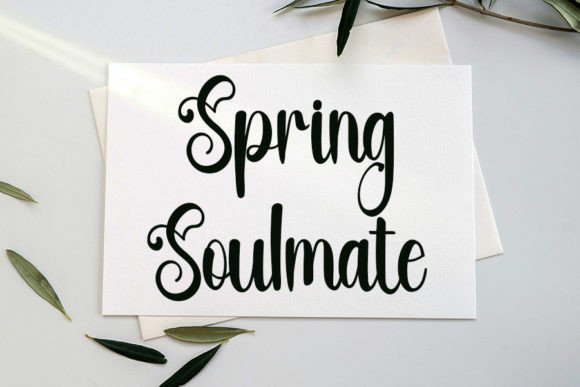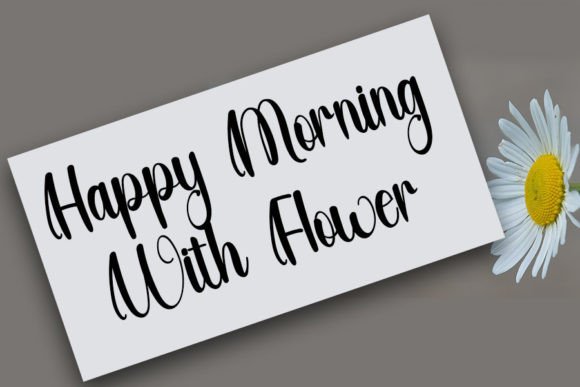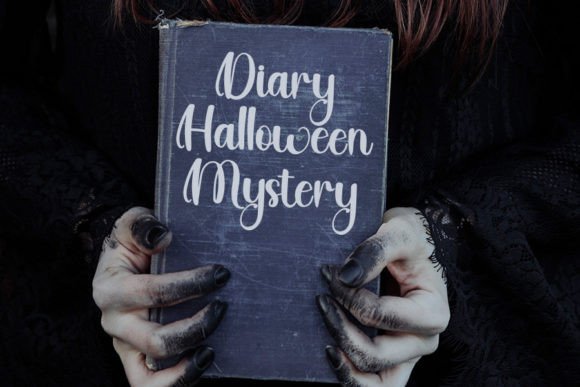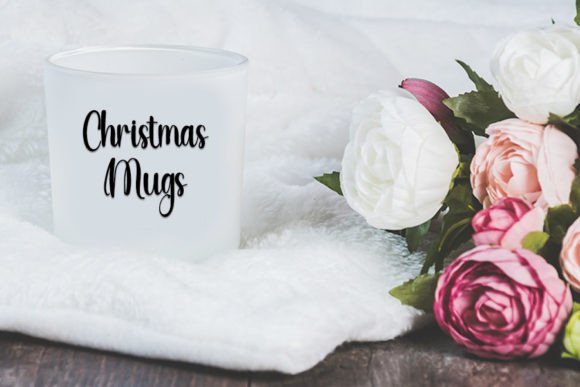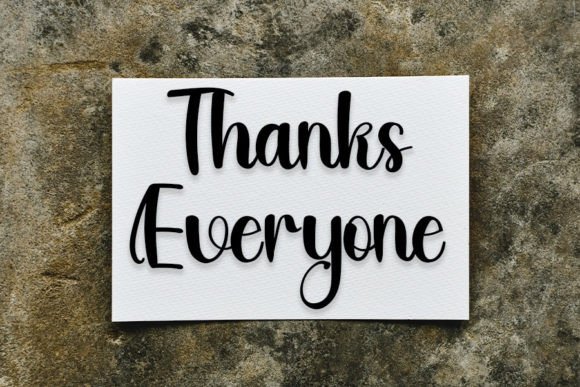
Introduction to Simple Witch Font
Have you ever found yourself scrolling through social media, and suddenly a beautiful, elegant design catches your eye? You can’t help but feel inspired to create something similar. For designers, this moment of inspiration can be a catalyst for a high-quality creative project. One design resource that can help you achieve this look is the Simple Witch Font.
This beautiful script font has a classy, modern feel that’s perfect for logos, branding, invitations, stationery, and more. With its elegant design, it’s no wonder why designers love using Simple Witch Font for their creative projects. Whether you’re working on a wedding design, social media post, or just need a font for your personal projects, Simple Witch Font is a valuable asset to have in your design arsenal.
Key Features of Simple Witch Font
- High-quality design resource suitable for creative projects, offering a unique and magical touch.
- Unique, hand-drawn style with intricate details, making it perfect for spellbooks, potions, and other witch-themed designs.
Honest Review: Simple Witch Font
I recently stumbled upon the Simple Witch Font while working on a creative project, and I must say it’s a great design resource to have in your toolkit. As a designer, I appreciate fonts that are both high quality and easy to use.
- Beautiful, hand-drawn aesthetic that adds a touch of magic to any design.
- Only available in a limited number of font styles and sizes.
Overall, I’m impressed with the Simple Witch Font. It’s a great addition to any designer’s collection, and its unique aesthetic makes it perfect for creative projects. While it may have some limitations, I think it’s well worth the download. If you’re looking for a high-quality font to add some magic to your designs, give the Simple Witch Font a try!
Simple Witch Font is perfect for creative projects such as:
- Witch-themed invitations and party decorations
- Magical marketing materials and branding
- Spellbinding social media graphics and posts
Tips for Getting the Most Out of Simple Witch Font